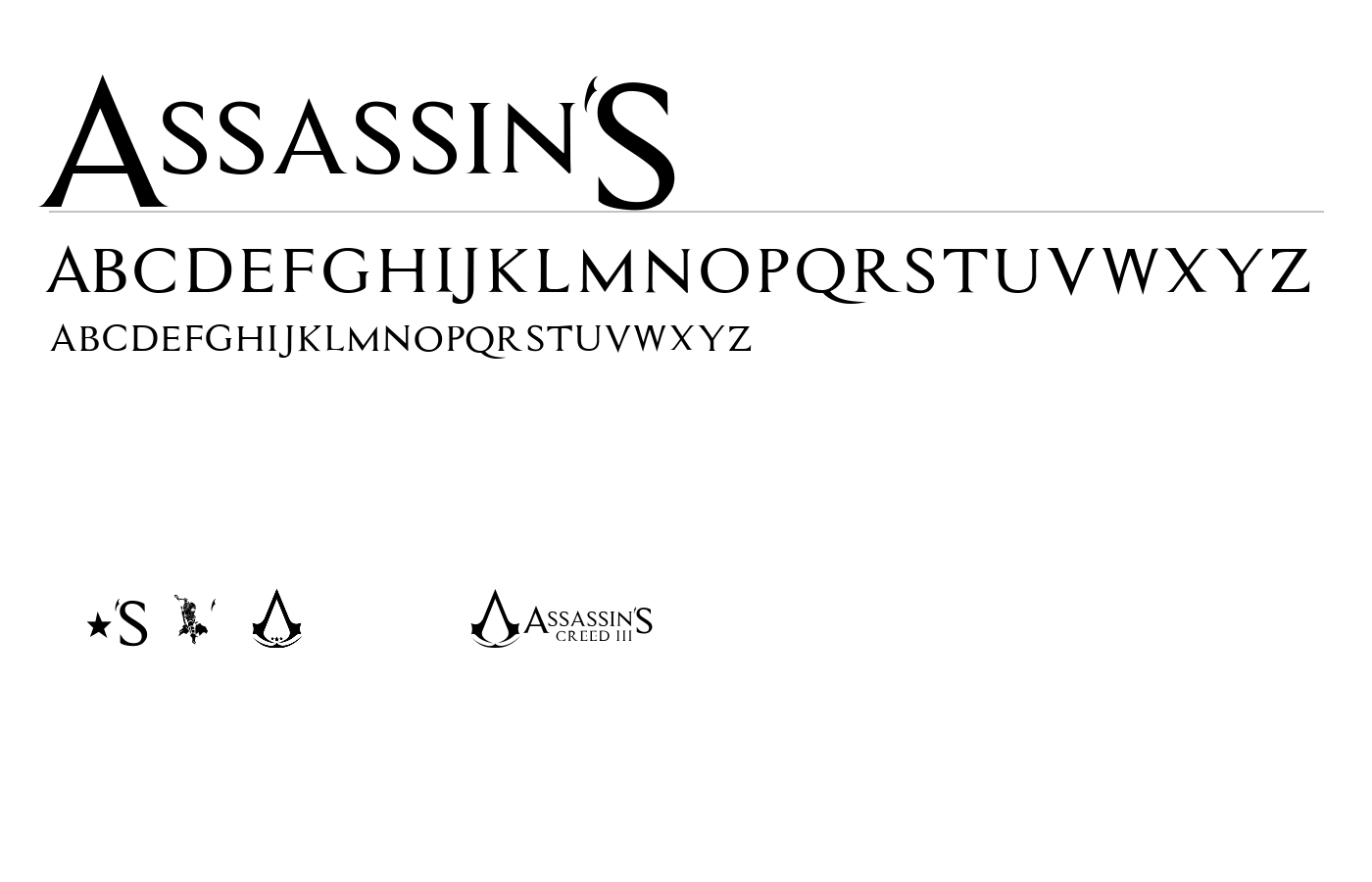
Assassin$ is a refined serif font with a classic, elegant feel characterized by its high contrast between thick and thin strokes and sharp, bracketed serifs. The tall, narrow letterforms with distinctive features like the single-story ‘S’ and gently curved tails convey a sophisticated and somewhat dramatic tone, making it well-suited for luxury branding, editorial headlines, and projects seeking a timeless, formal atmosphere. Its clean yet expressive style works particularly well in logos and titles where a touch of historical or artistic flair is desired.
Assassin$ Font
About Assassin$ Font